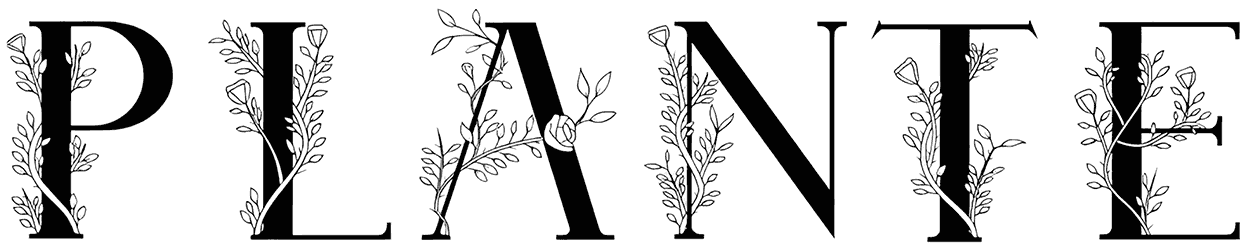
Plante Font
Designed byGilangs
Plante is a decorative font that will add a touch of nature to your designs. Despite its lack of lowercase characters, Plante is the ideal font for invitations, greeting cards, and any project that could benefit from a touch of greenery due to its graceful, curving letters and delicate leaves and vines.